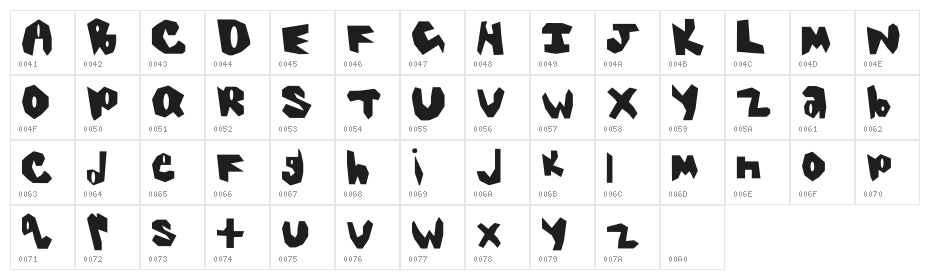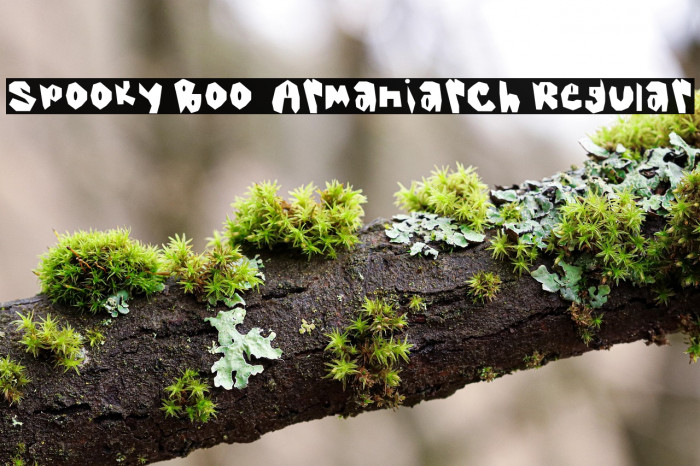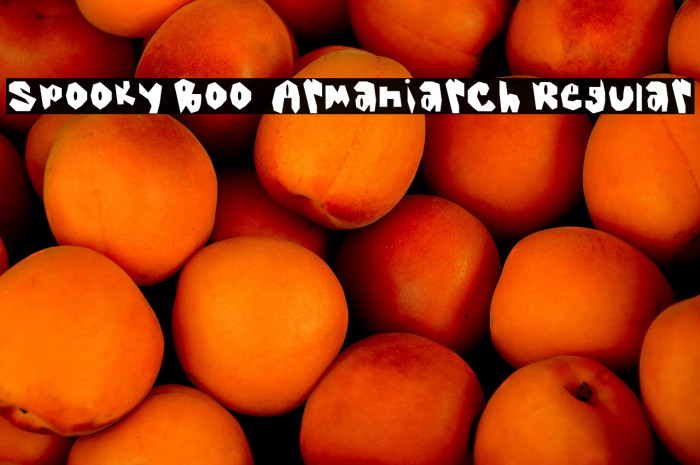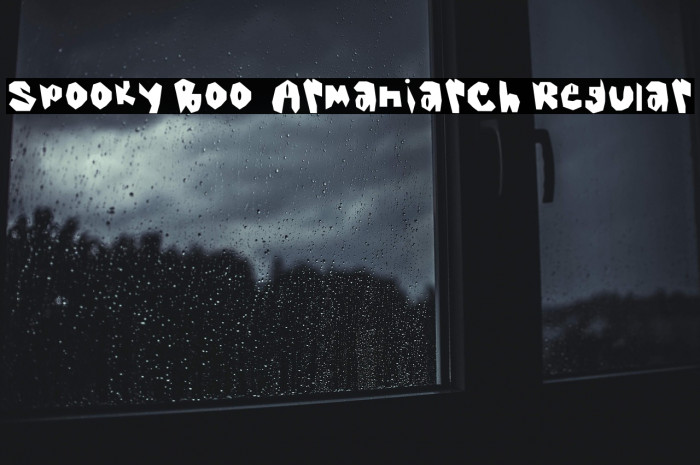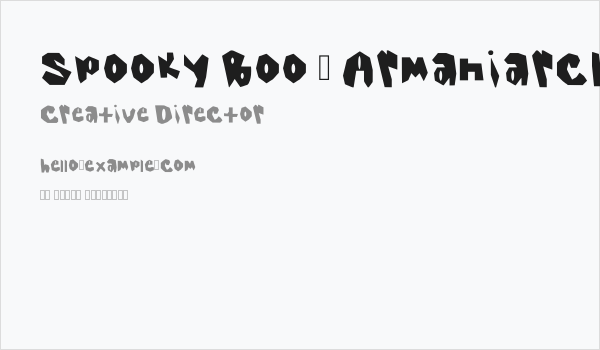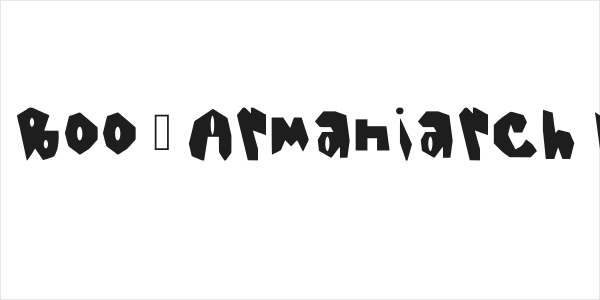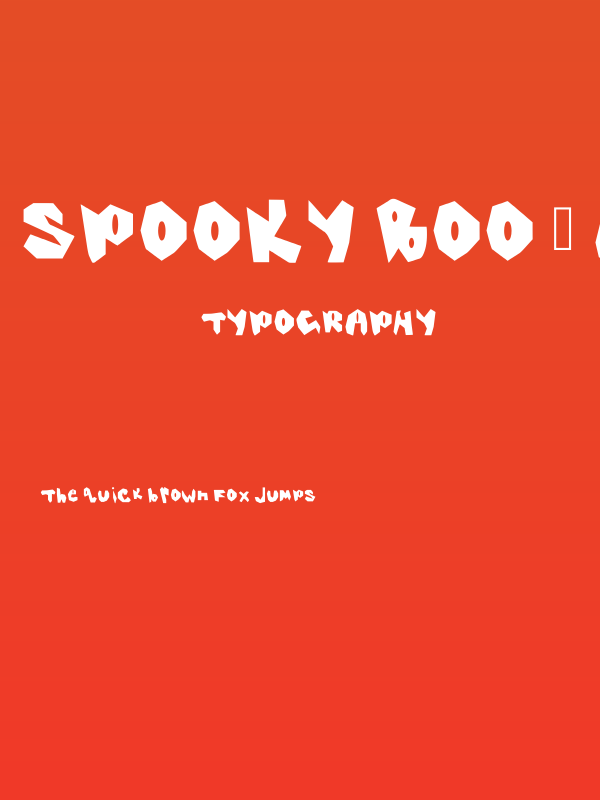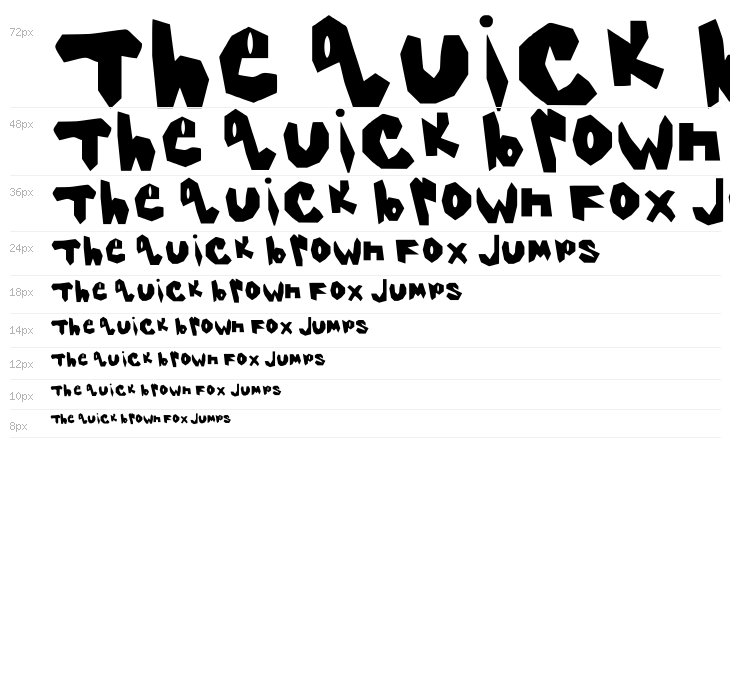
Spooky Boo _ Armaniarch Regular Font
Spooky Boo _ Armaniarch Regular Description
This font features a bold and jagged style, reminiscent of cut-out paper shapes or a spooky, haunted theme. The characters have an irregular and playful appearance, with sharp angles and uneven edges that give it a unique, eye-catching look. The uppercase and lowercase letters maintain a consistent design, with each character exhibiting a distinct, quirky personality. This font is perfect for creating a sense of mystery or fun, ideal for Halloween-themed projects or any design that requires a touch of the unusual.
| Proposed Projects | Ideal for Halloween invitations, spooky-themed posters, children's book covers, and creative branding projects. |